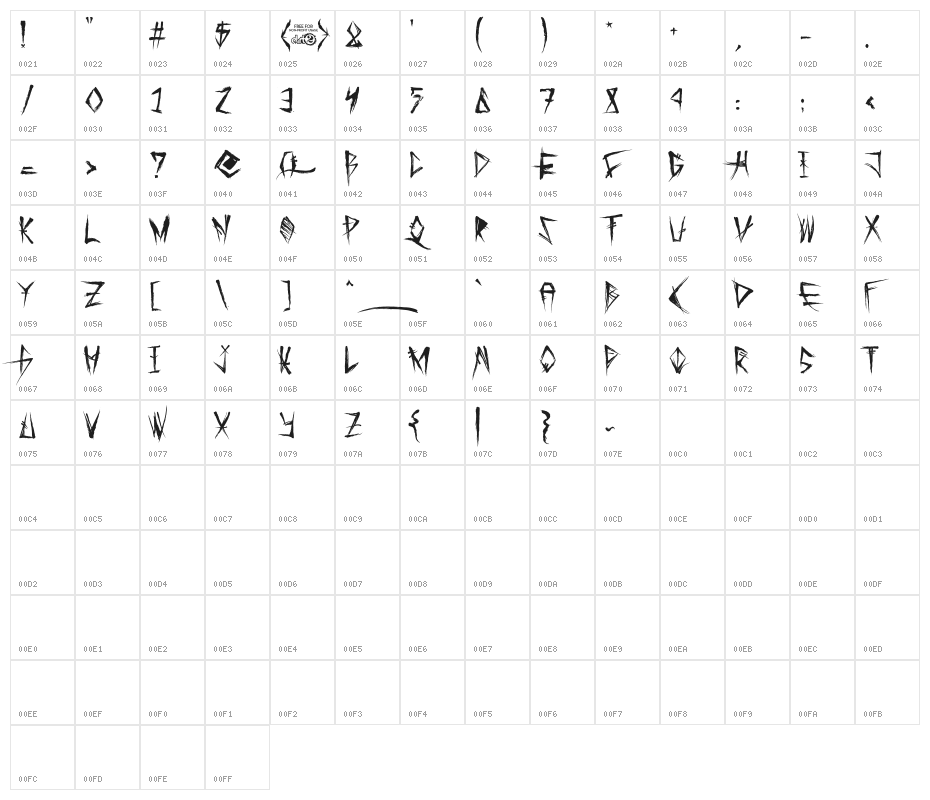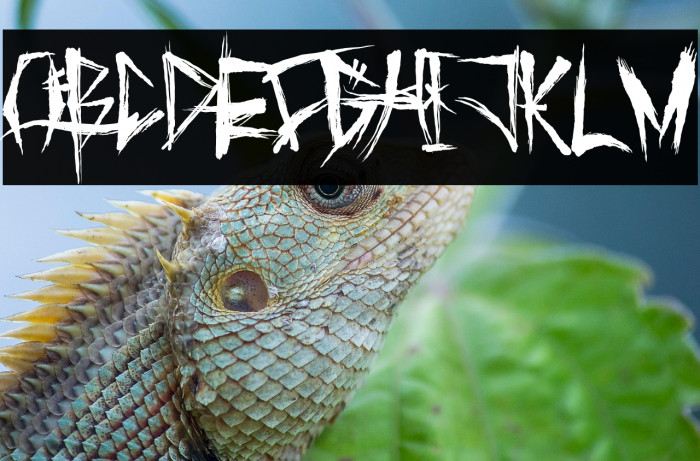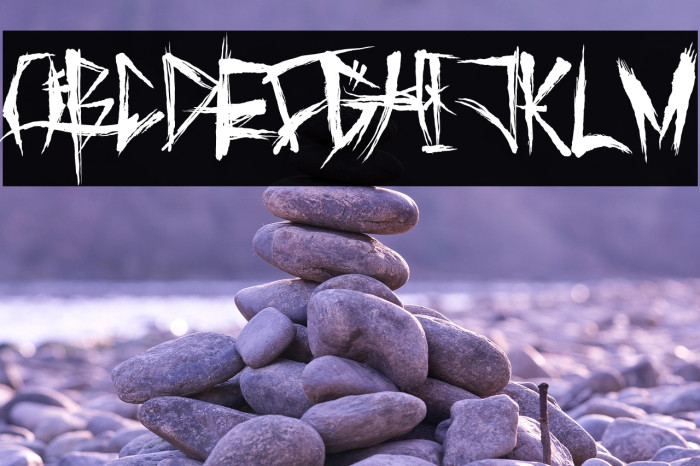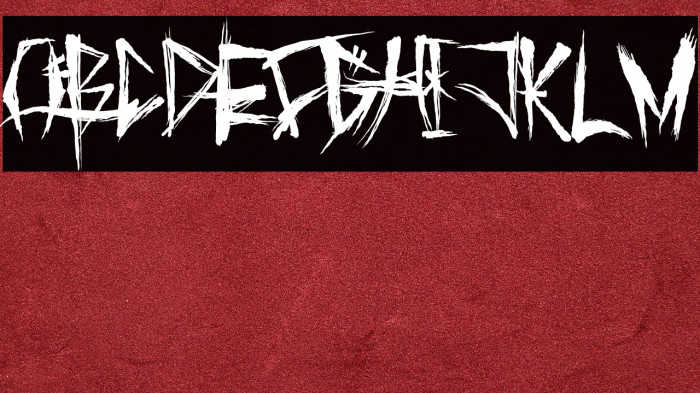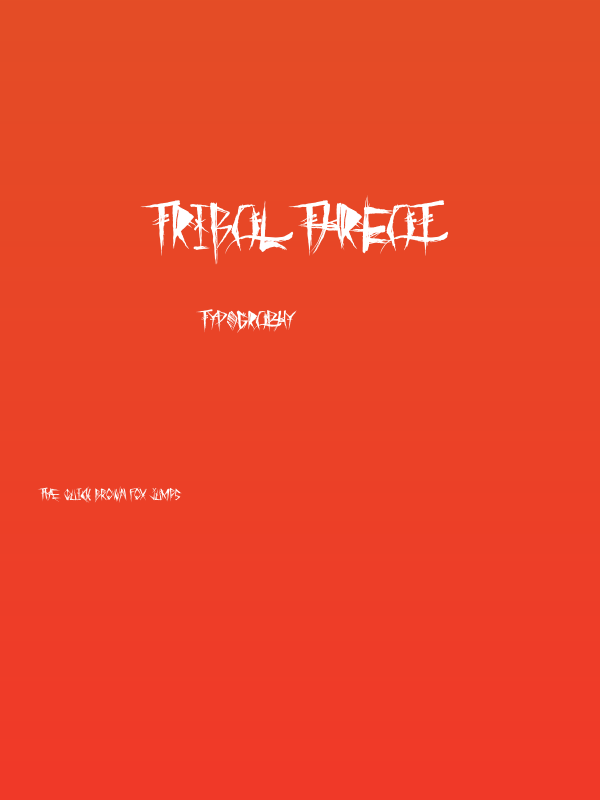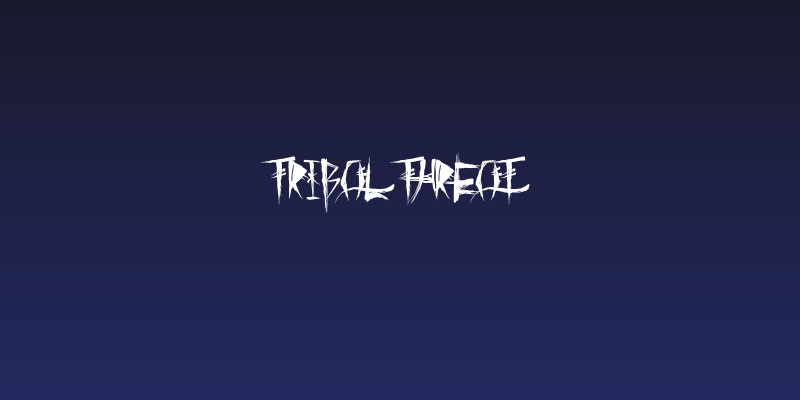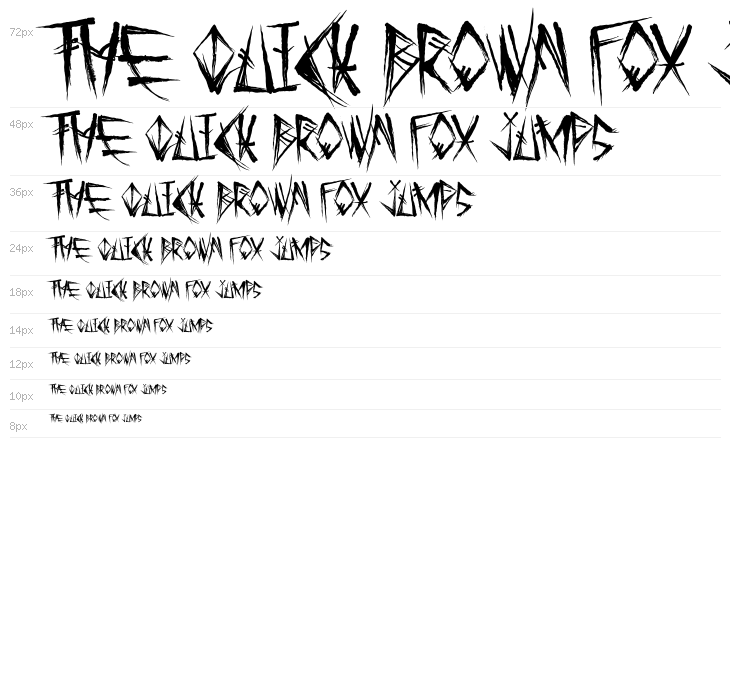
Tribal Threat Font
Tribal Threat Description
This font features a highly stylized, aggressive design with sharp, jagged edges and a tribal aesthetic. The characters are bold and dynamic, with an irregular, hand-drawn appearance that conveys a sense of raw energy and intensity. The uppercase and lowercase letters maintain a consistent style, characterized by their angular forms and dramatic strokes. Numbers and special characters follow the same design principles, ensuring a cohesive look across all elements. This font is ideal for projects that require a bold, edgy statement, capturing attention with its unique and striking appearance.
Proposed ProjectsPerfect for album covers, posters, tattoos, and any design needing a bold, edgy look.